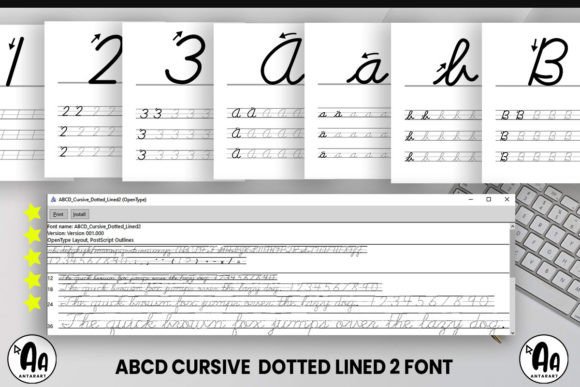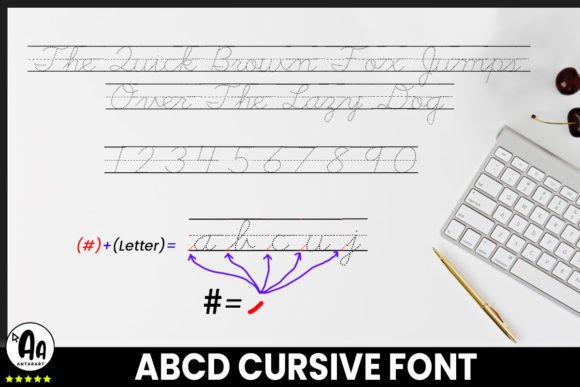
Unlock the Art of Cursive Handwriting with Abcd Cursive Dotted Lined2 Font
Do you remember the joy of holding a pencil and tracing the curves of your first cursive letters? The smooth flow of ink on paper, the satisfaction of mastering a new skill, and the pride of creating something beautiful with your own hands. For many of us, cursive handwriting is a cherished memory that evokes a sense of nostalgia and creativity.
Today, we’re excited to introduce the Abcd Cursive Dotted Lined2 Font, a versatile and interactive tool designed to help you create thousands of worksheets using any software. Whether you’re a teacher looking for a fun and engaging way to teach cursive handwriting or a designer seeking a unique font for your next project, this font is a valuable resource that’s sure to inspire.
Abcd Cursive Dotted Lined2 Font Features
- Font Type: Cursive, Dotted Lined
- Unique Characteristics: Includes decorative elements, such as dotted lines and flourishes, to add a creative touch to written text
Review of Abcd Cursive Dotted Lined2 Font
Overall, I have mixed feelings about this font. There are some things that I really like, but there are also some limitations that prevent it from being a top choice for me. ✨ Let’s start with the positives.
- ✨ The cursive style is quite elegant and can add a touch of sophistication to any document.
- ✨ The dotted lined effect adds a unique and interesting element to the font, making it stand out from more traditional fonts.
- ✨ The font is relatively easy to read, even in smaller sizes, making it suitable for a variety of applications.
However, there are also some limitations to consider. ⚠️ Here are a few:
- ⚠️ The font may be too ornate for some applications, such as body text in a long document. The dotted lined effect can make it difficult to read large blocks of text.
- ⚠️ The font is not as versatile as some other fonts, and may not be suitable for use in all design contexts.
- ⚠️ The font may not be as widely supported as some other fonts, which could lead to compatibility issues in certain situations.
Overall, I would give this font 3 out of 5 stars. While it has some nice qualities, its limitations prevent it from being a top choice for me. If you’re looking for a unique and elegant font for a specific application, this might be worth considering, but for more general use, I would look elsewhere.
Some tips for getting the most out of the Abcd Cursive Dotted Lined2 Font include:
Using it for titles and headings to add a touch of elegance.
Experimenting with different font sizes and colors to create visual interest.
Combining it with other fonts to create a unique and creative look.
Using it for invitations, greeting cards, and other special occasion materials.
Alternatives to Abcd Cursive Dotted Lined2 Font
Carolyna Pro is a modern cursive font with a touch of elegance. It’s perfect for invitations, greeting cards, and other creative projects where a stylish, handwritten look is desired. Compared to Abcd Cursive Dotted Lined2 Font, Carolyna Pro has a more refined and sophisticated feel, making it ideal for high-end designs.
Great Vibes is a fun and playful cursive font with a relaxed, handwritten feel. It’s great for casual designs, such as social media posts, blog headers, and product packaging. Unlike Abcd Cursive Dotted Lined2 Font, Great Vibes has a more casual and approachable vibe, making it perfect for everyday use.